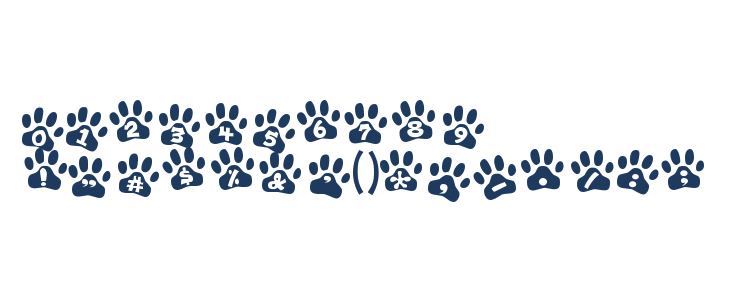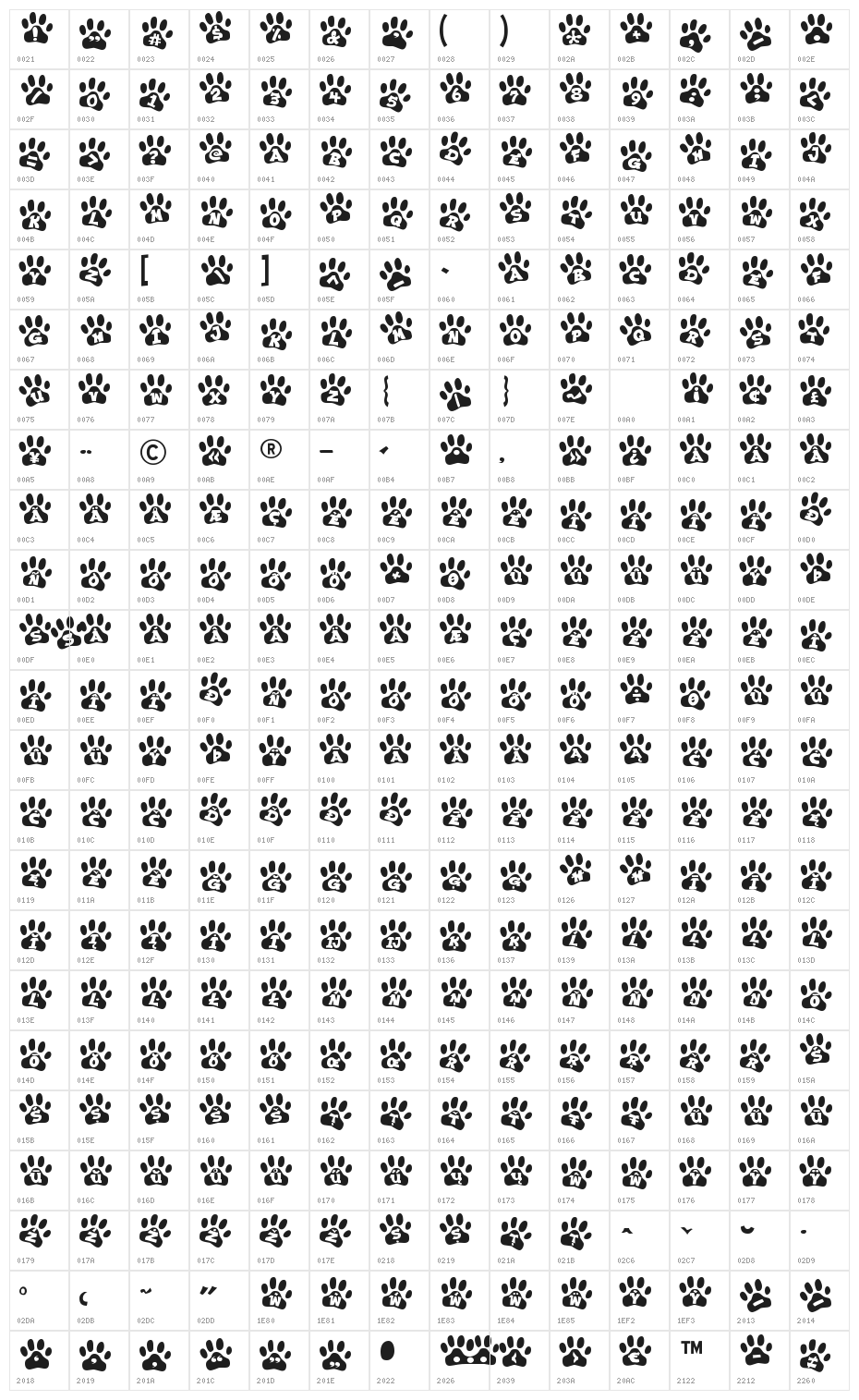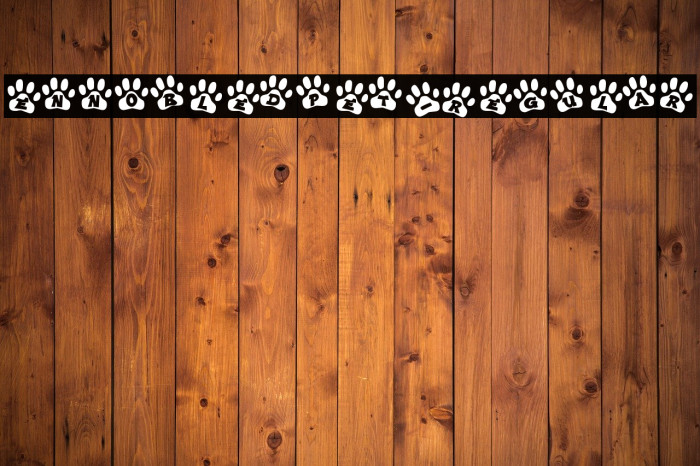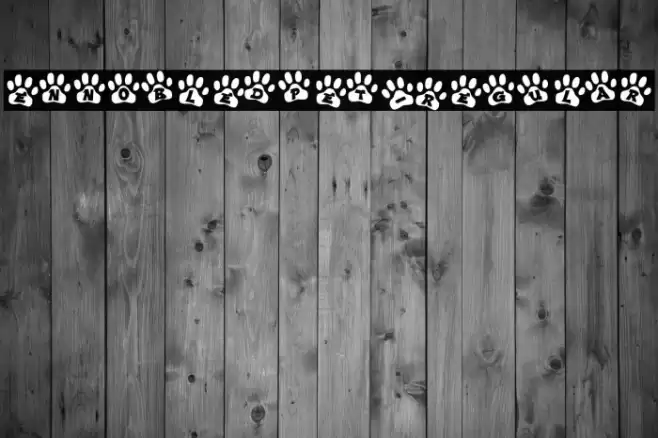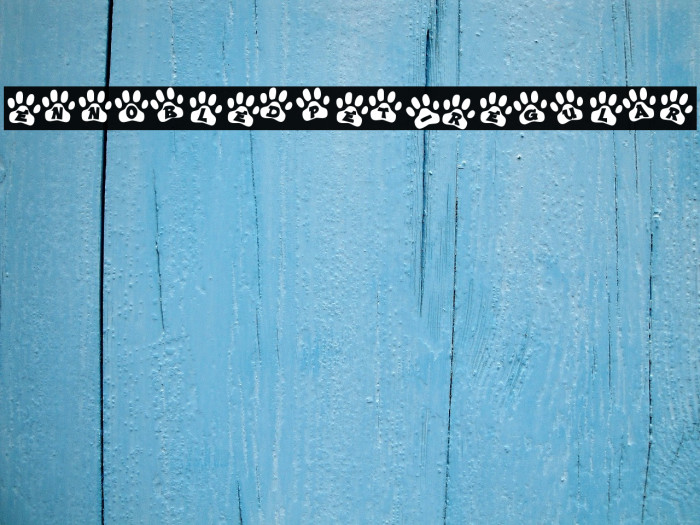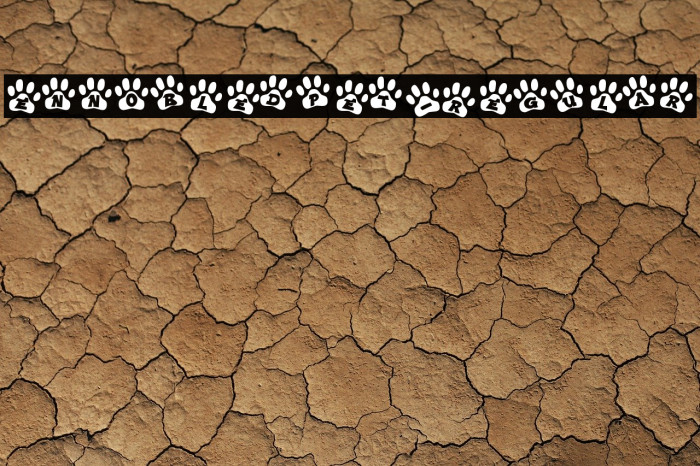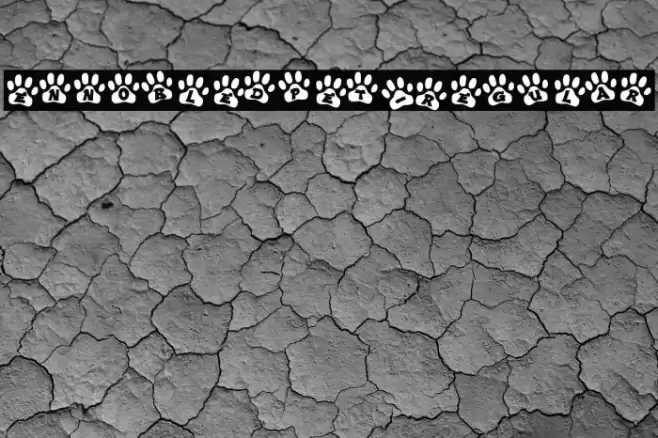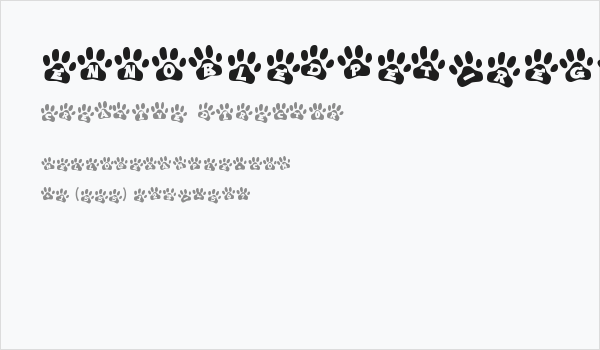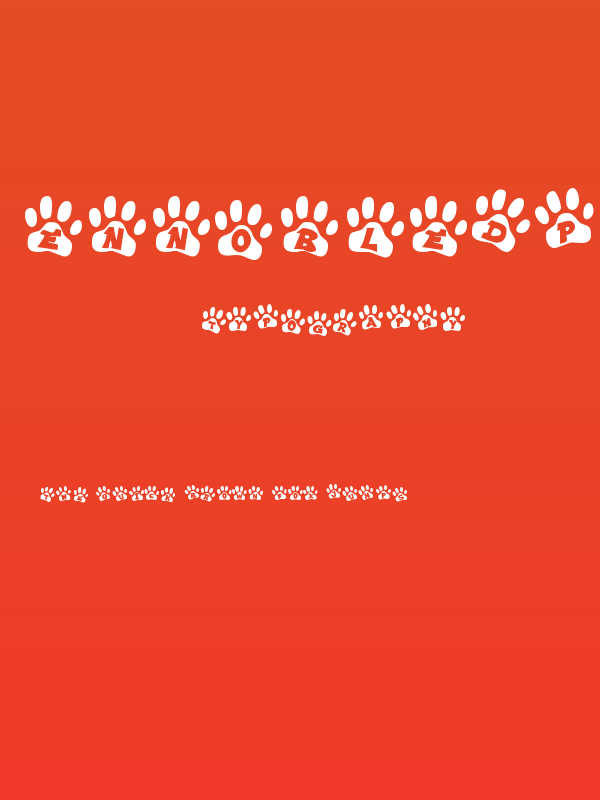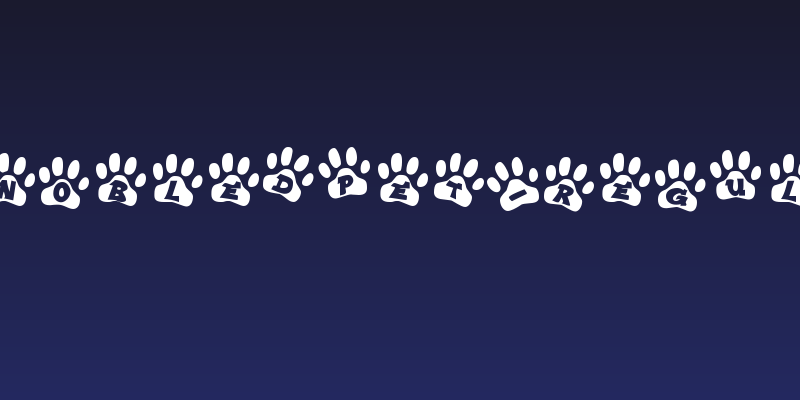
EnnobledPet-Regular Font
EnnobledPet-Regular Description
This playful and whimsical font features each character embedded within a paw print, creating a fun and engaging visual style. The letters and numbers are bold and clear, making them easily readable despite the decorative paw motif. This font is perfect for projects that require a lighthearted and animal-friendly theme, such as pet-related branding, children's books, or playful event invitations. The unique design ensures that each character stands out, while the consistent use of paw prints ties the entire alphabet together in a cohesive manner.
| Proposed Projects | Pet branding, children's books, playful invitations, animal-themed events. |